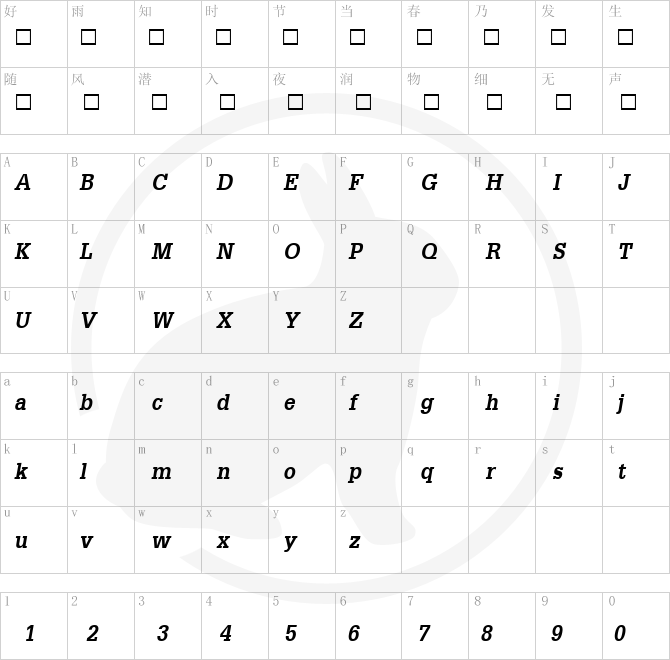
- Font Name:P5 DilleniaUPC
P5-DilleniaUPC-Bold-Italic.ttf is a very beautiful artistic font, P5-DilleniaUPC-Bold-Italic.ttf is widely used in the design and printing of various books and pictures,P5-DilleniaUPC-Bold-Italic.ttf has a strong visual impact,P5-DilleniaUPC-Bold-Italic.ttf is a commonly used font in newspapers, magazines and books, and is used in posters, e-commerce Poster design, store design, logo design, font design and other fields.P5-DilleniaUPC-Bold-Italic.